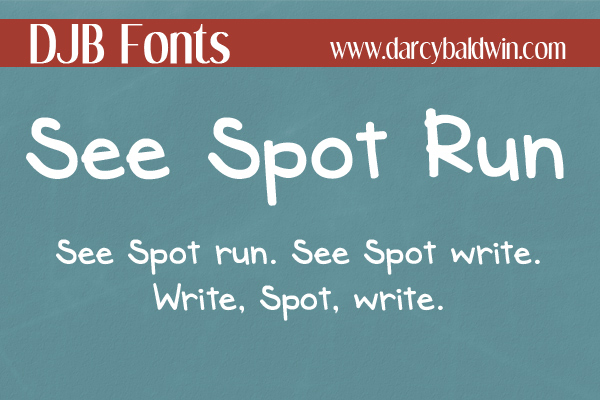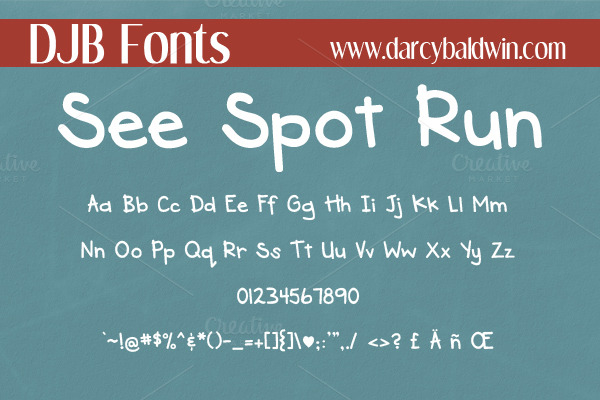
Name : DJB See Spot Run Font Files : JPG, TTF File Size : 692.69 KB Vector : Yes A child-like font that works for children's books as well as journaling, text and display. It also includes European language characters. Link for more information: https://creativemarket.com/darcybaldwin/226883-DJB-See-Spot-Run-Font